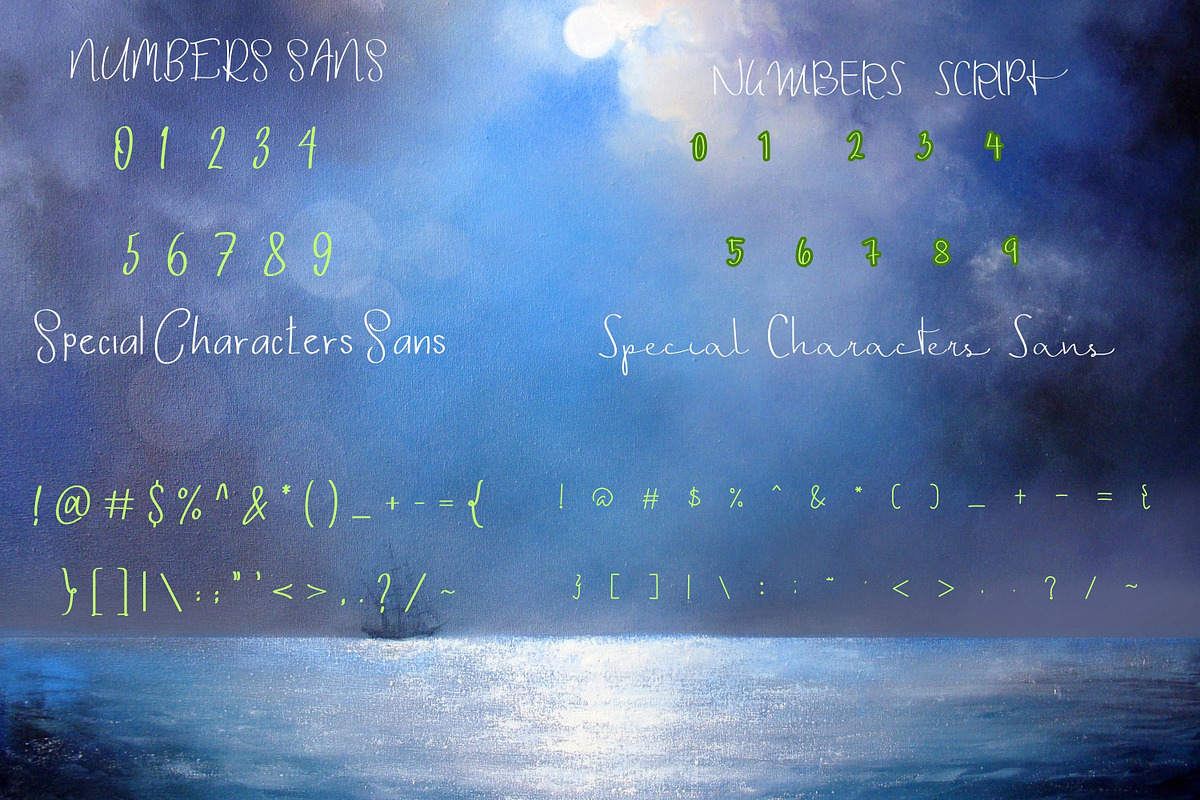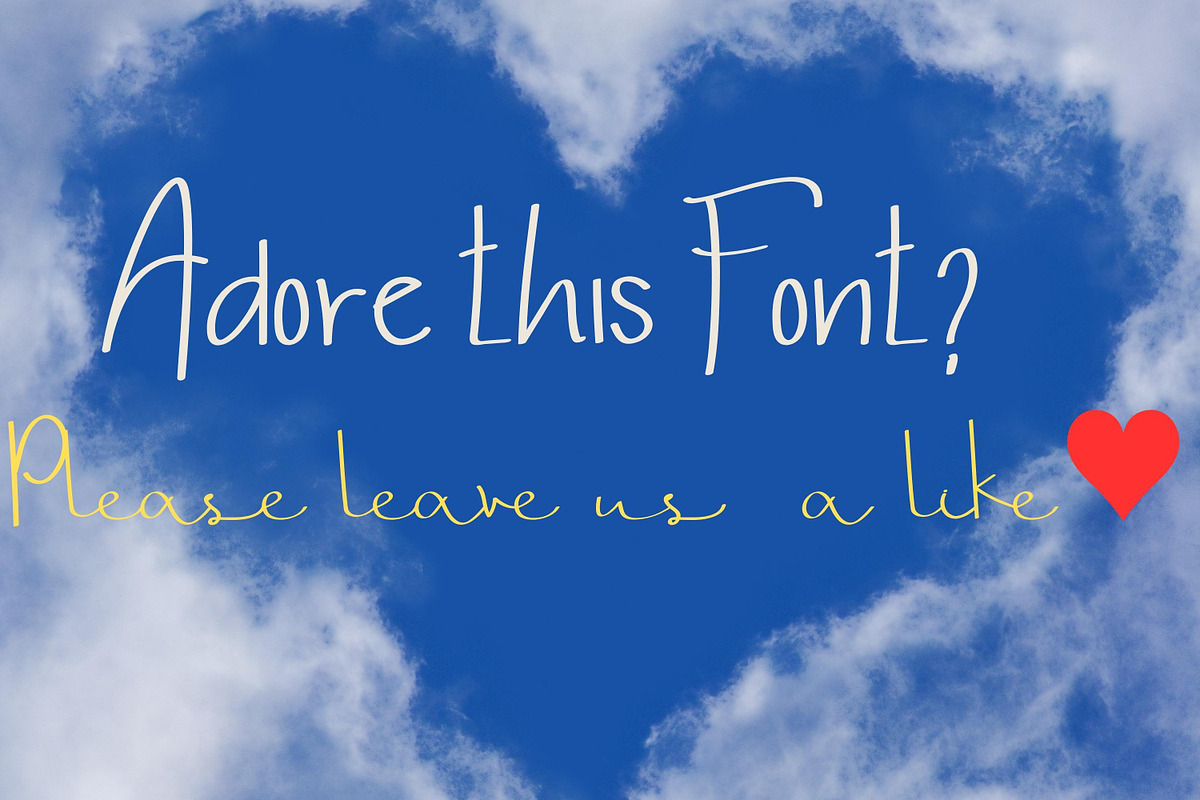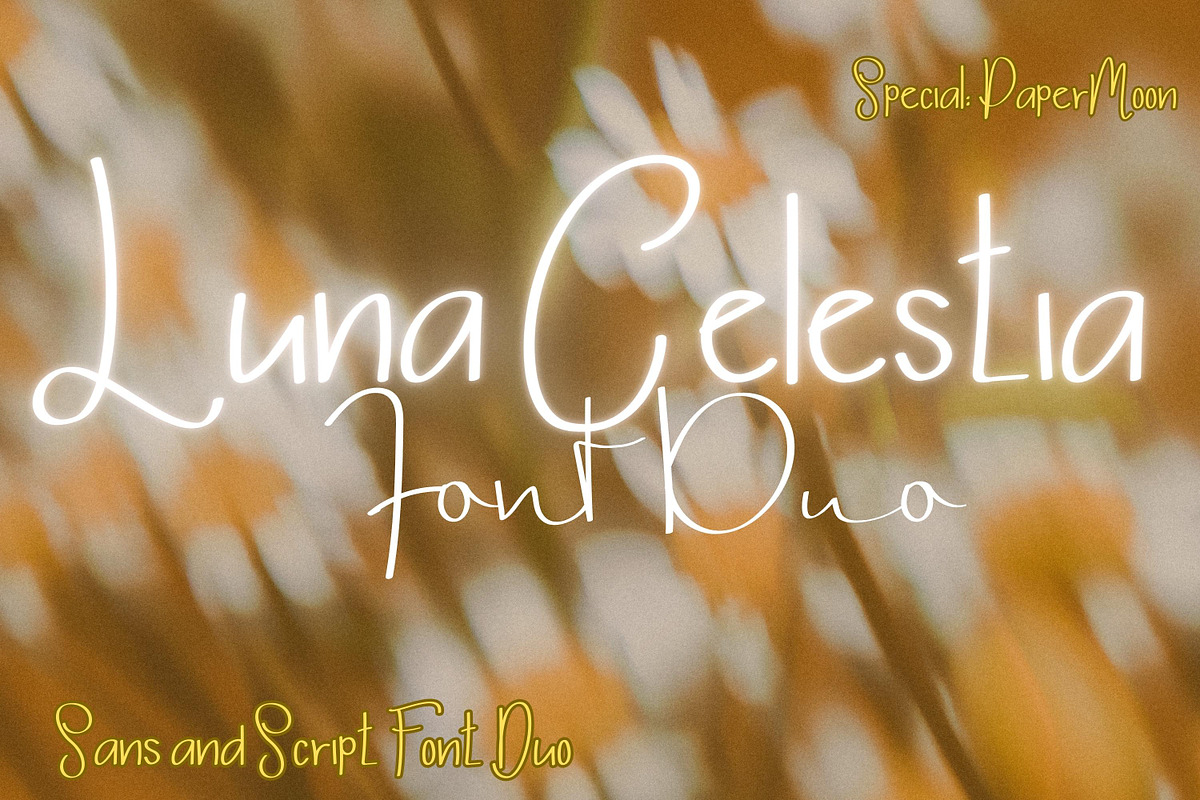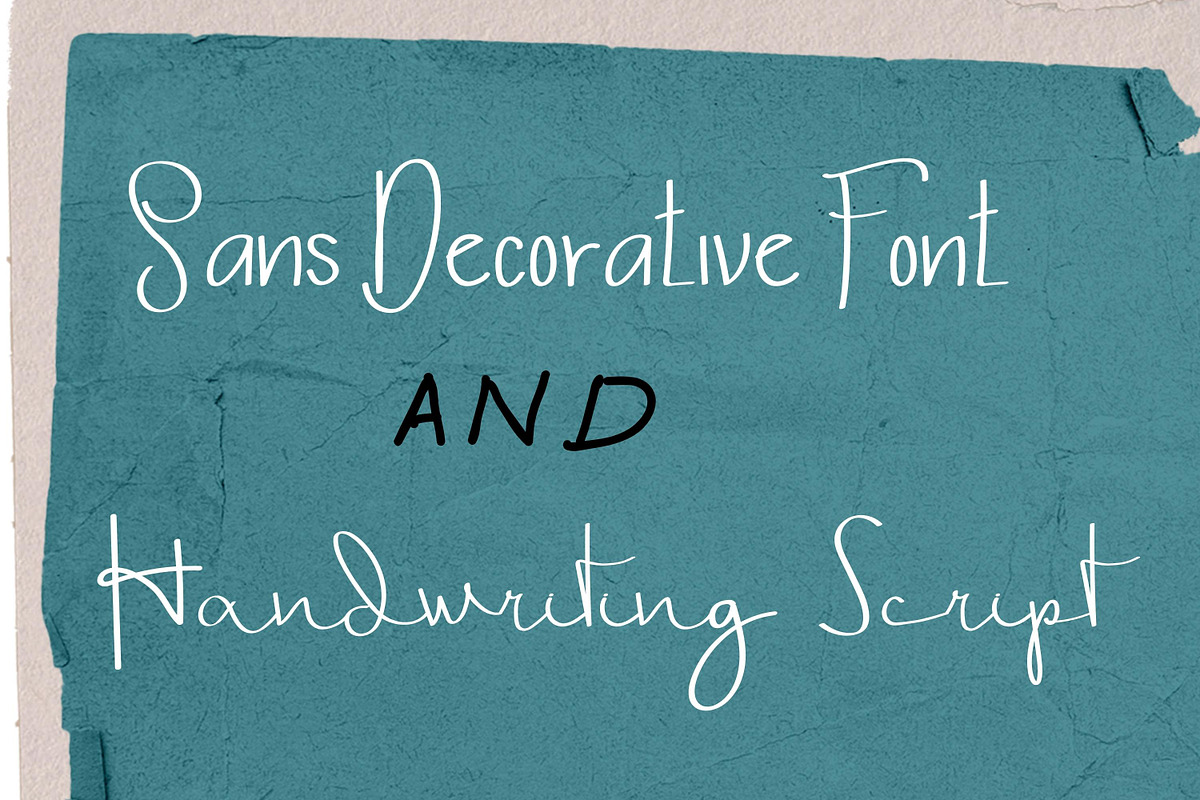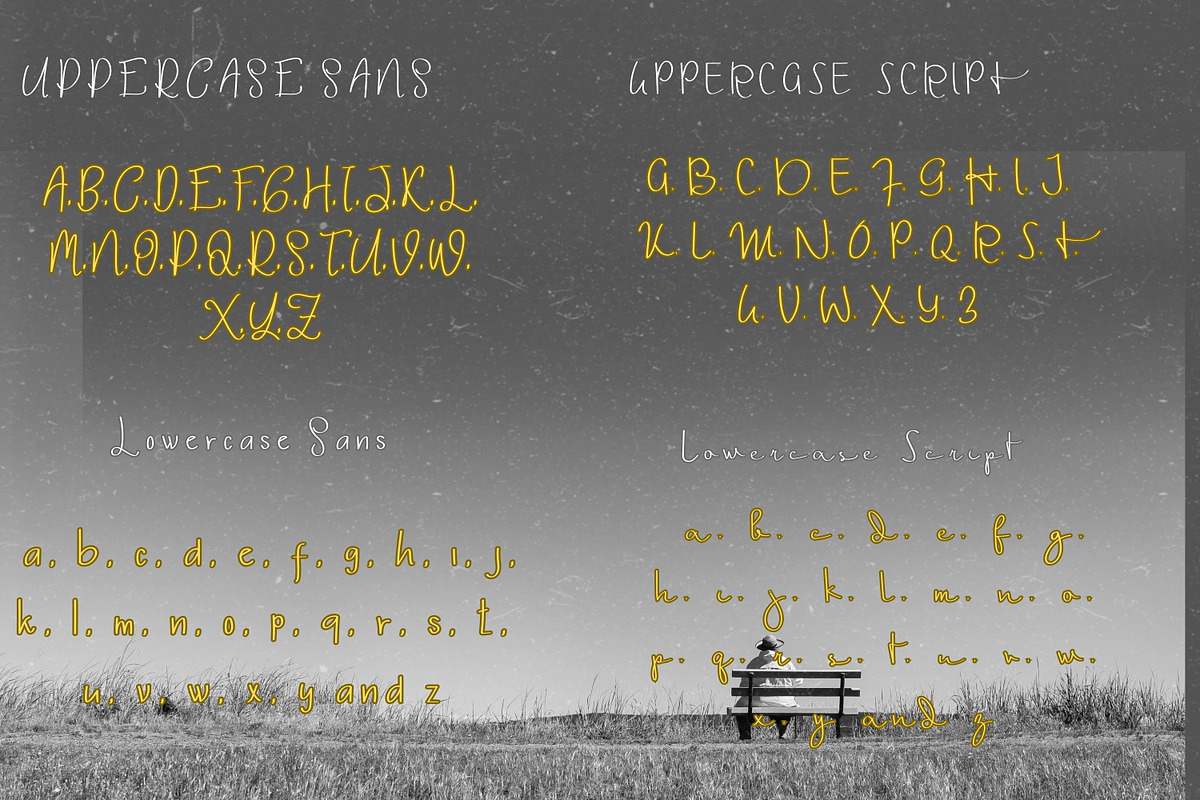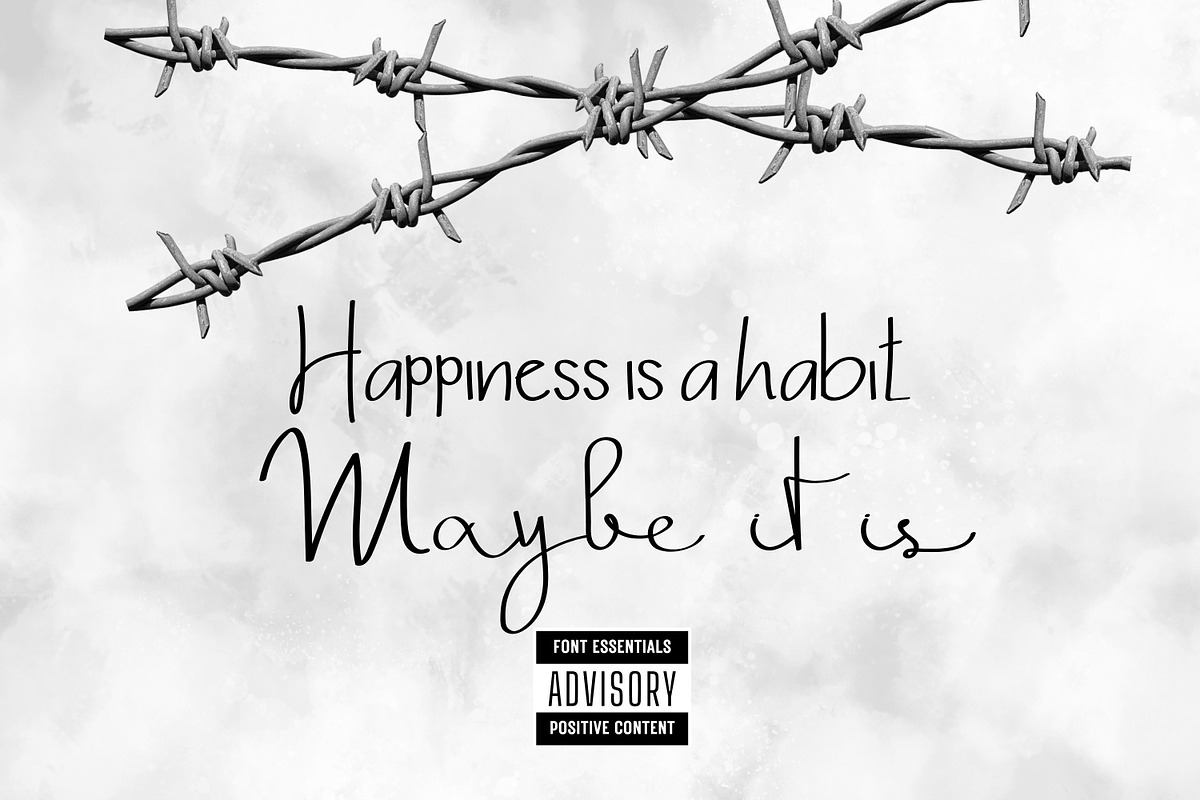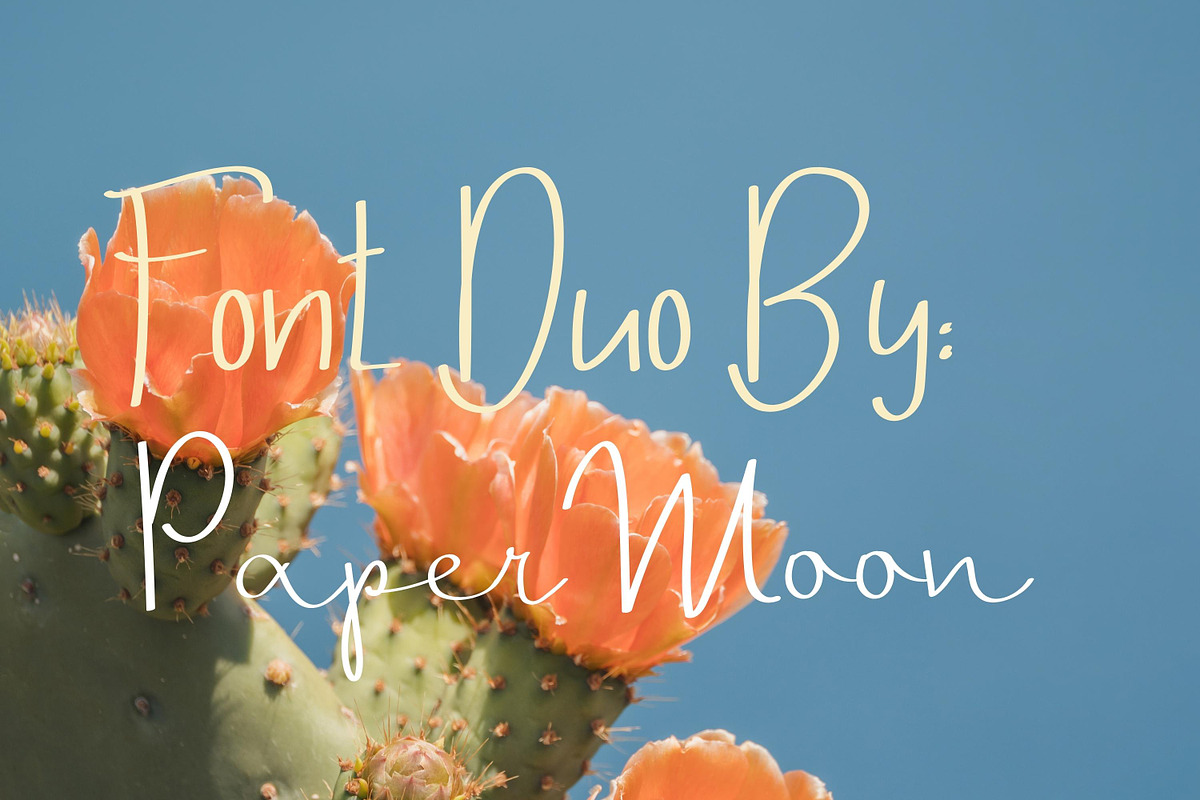
Luna Celestia: Sans and Script Duo
Attention creative minds! We're thrilled to introduce one of our latest font offerings: Luna Celestia Font Duo. This font duo is a versatile addition to your creative toolkit, featuring two distinctive styles: a sleek Sans Decorative Font and an elegant Handwriting Script. Luna Celestia is designed to complement a wide range of design projects and industries, making it the perfect choice for your creative endeavors.
Unlock your creative potential with Luna Celestia Font Duo and elevate your design projects to new heights.